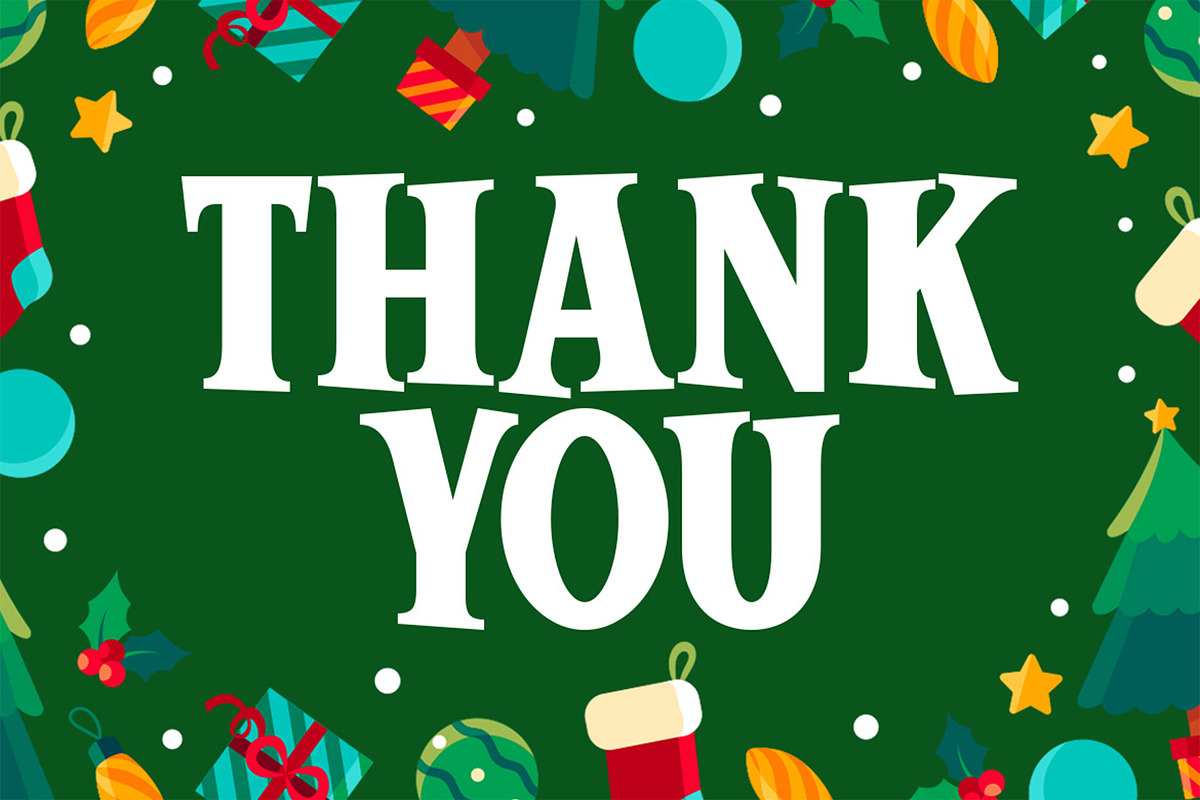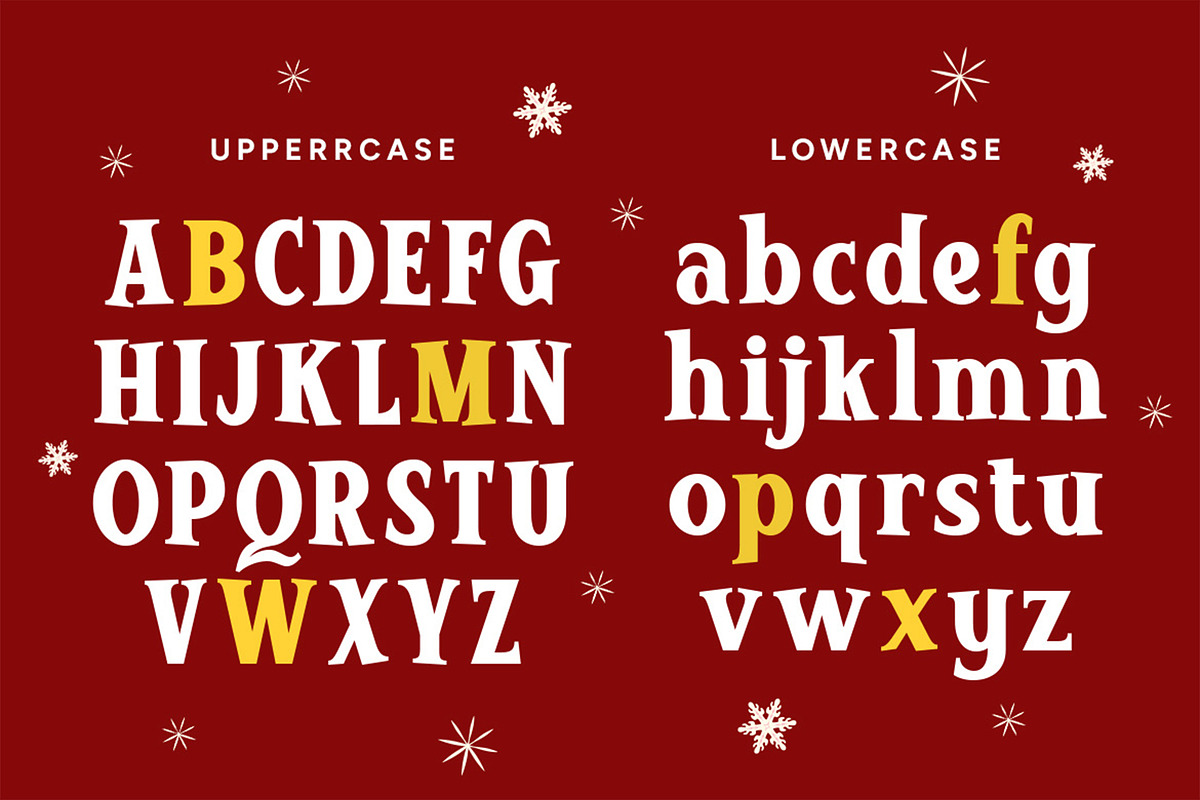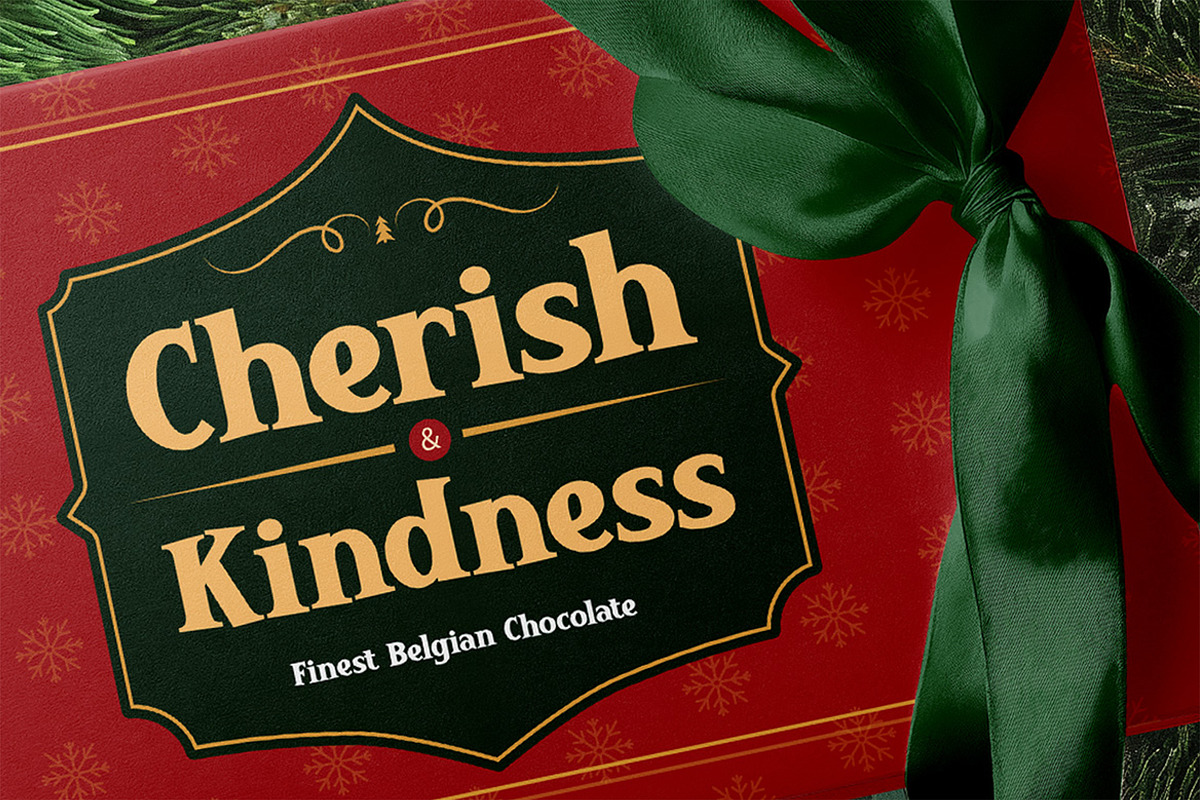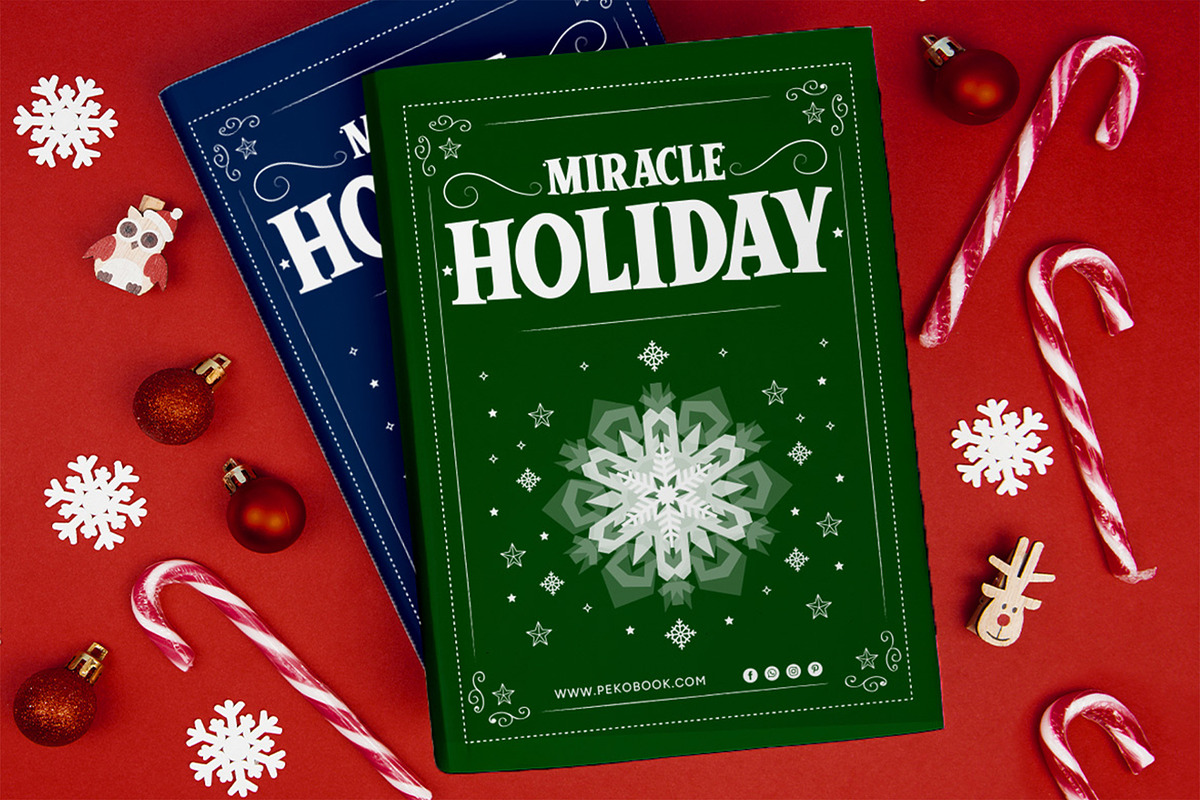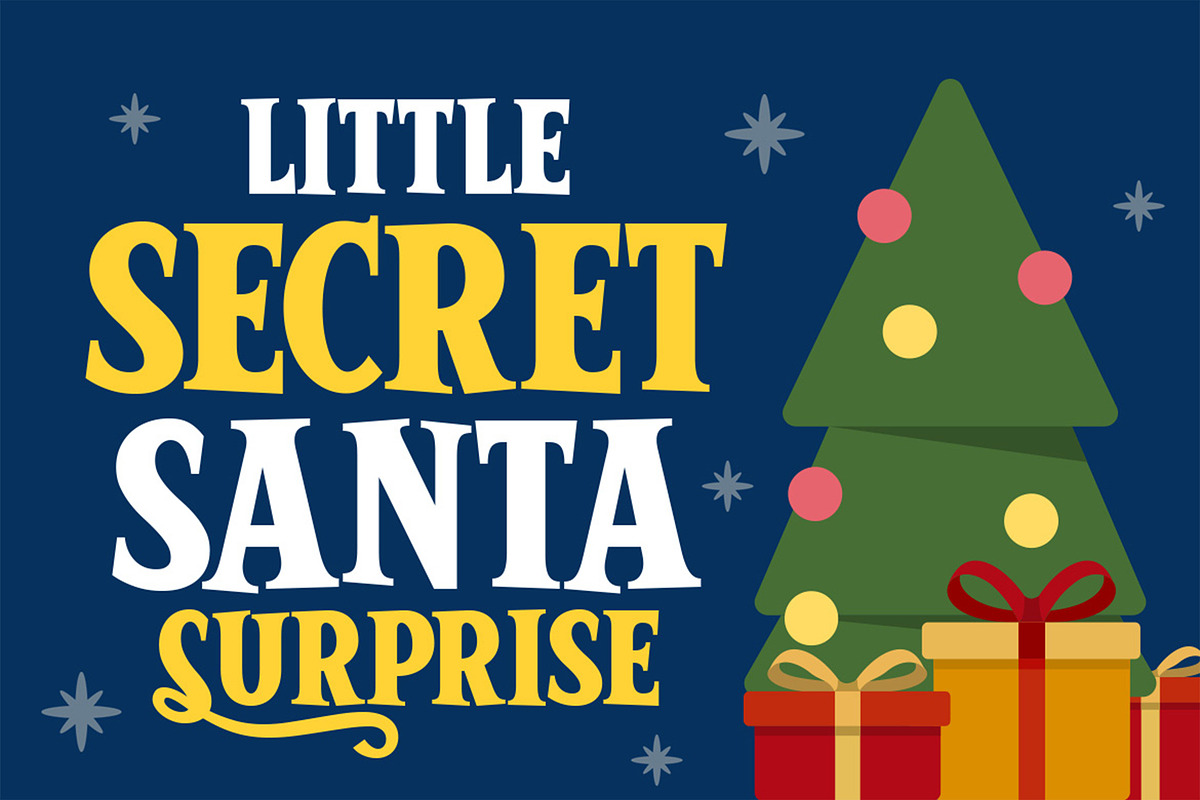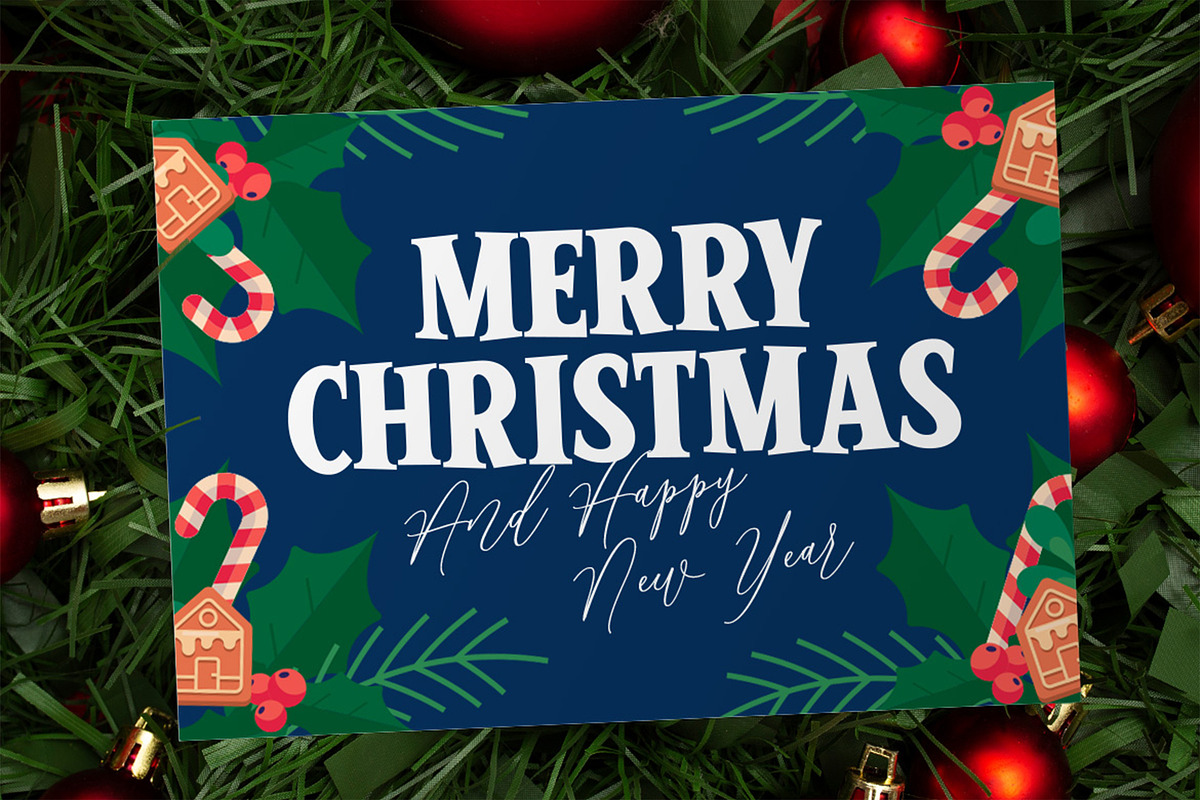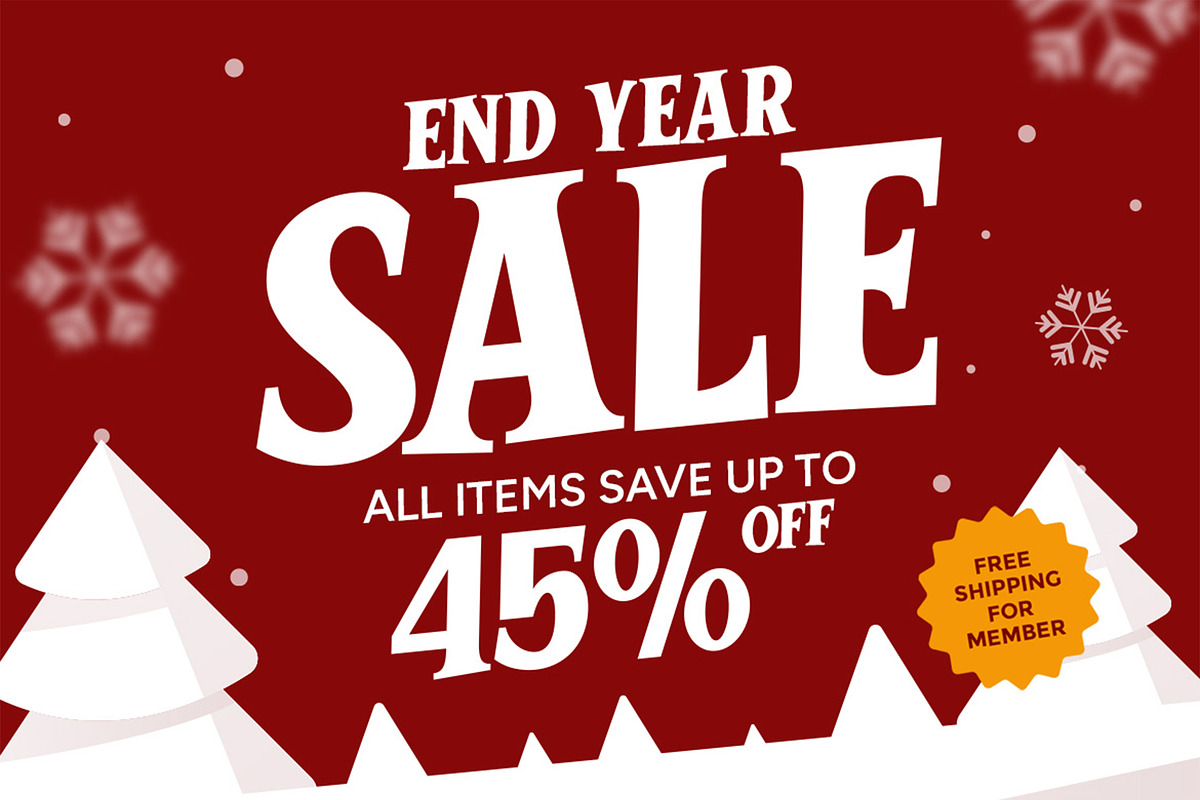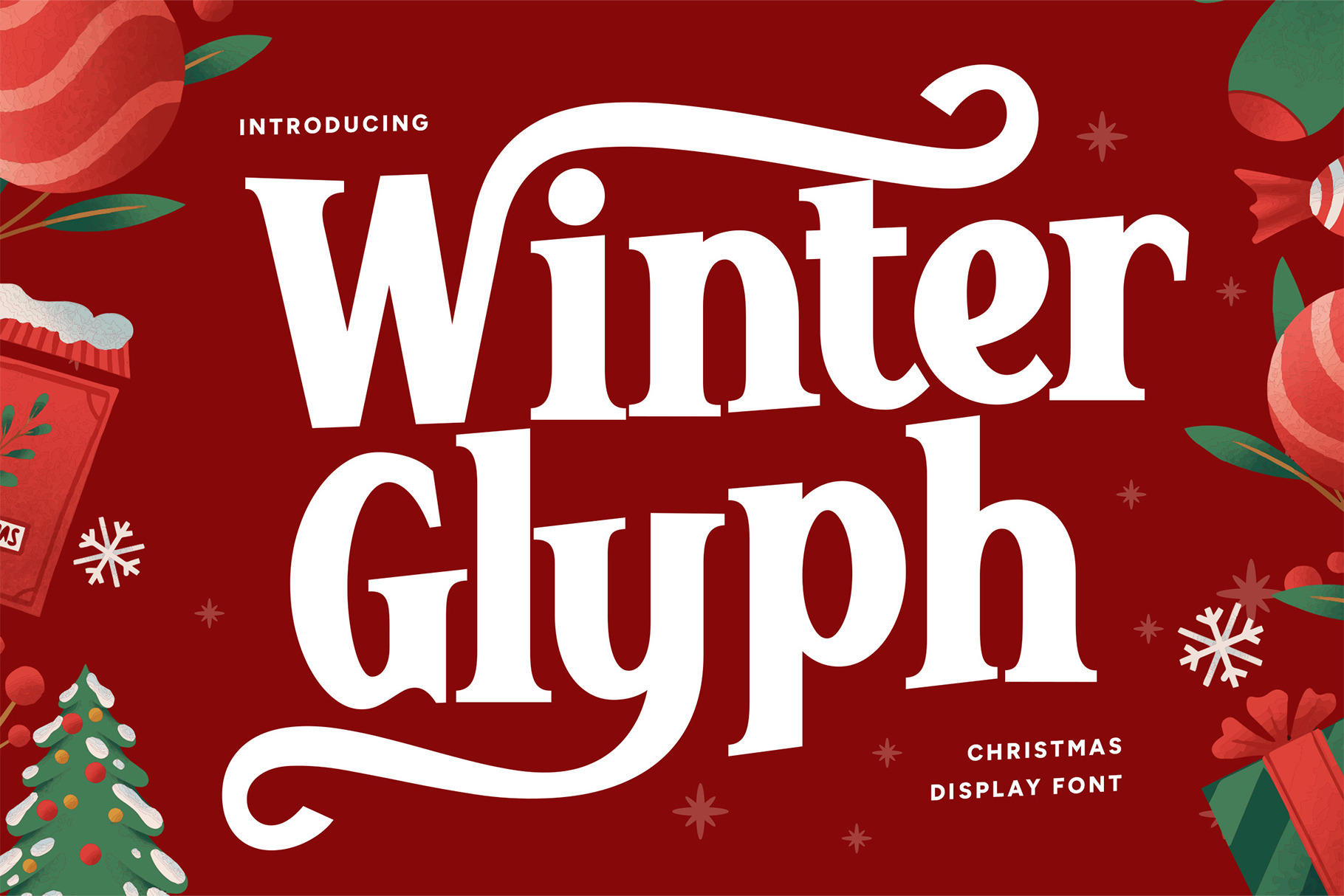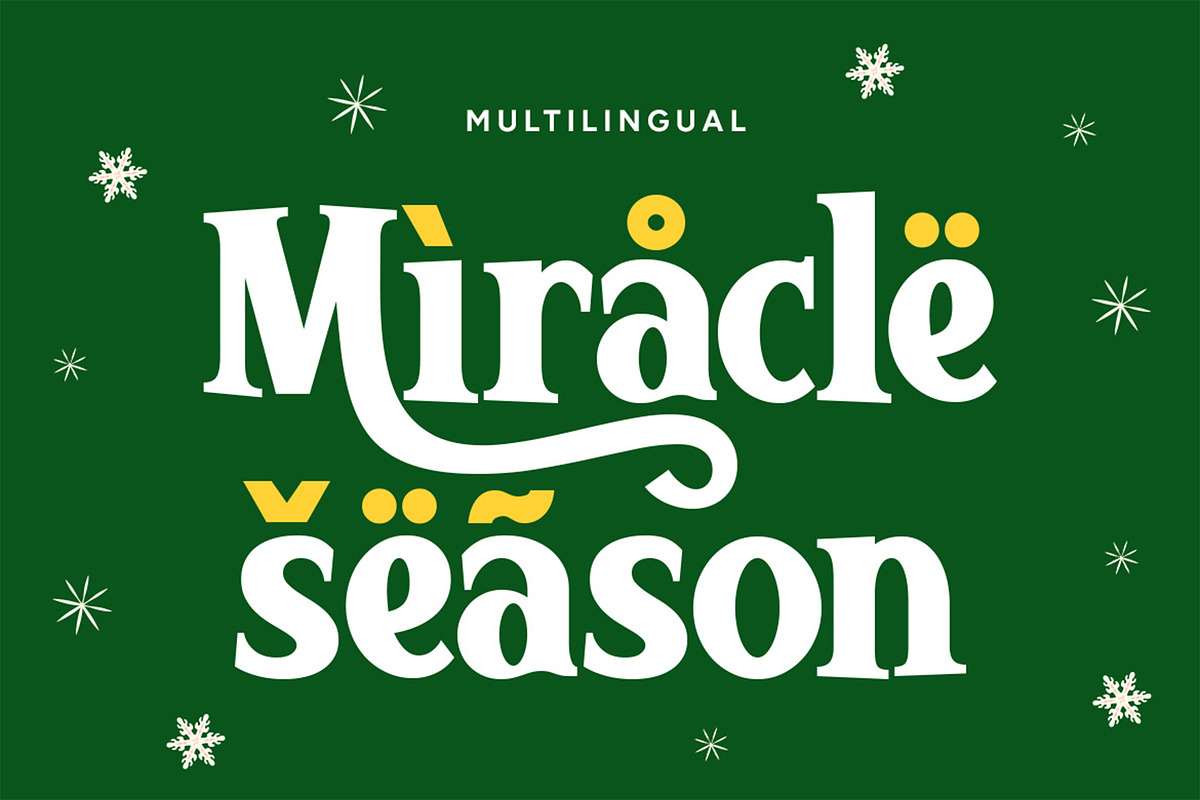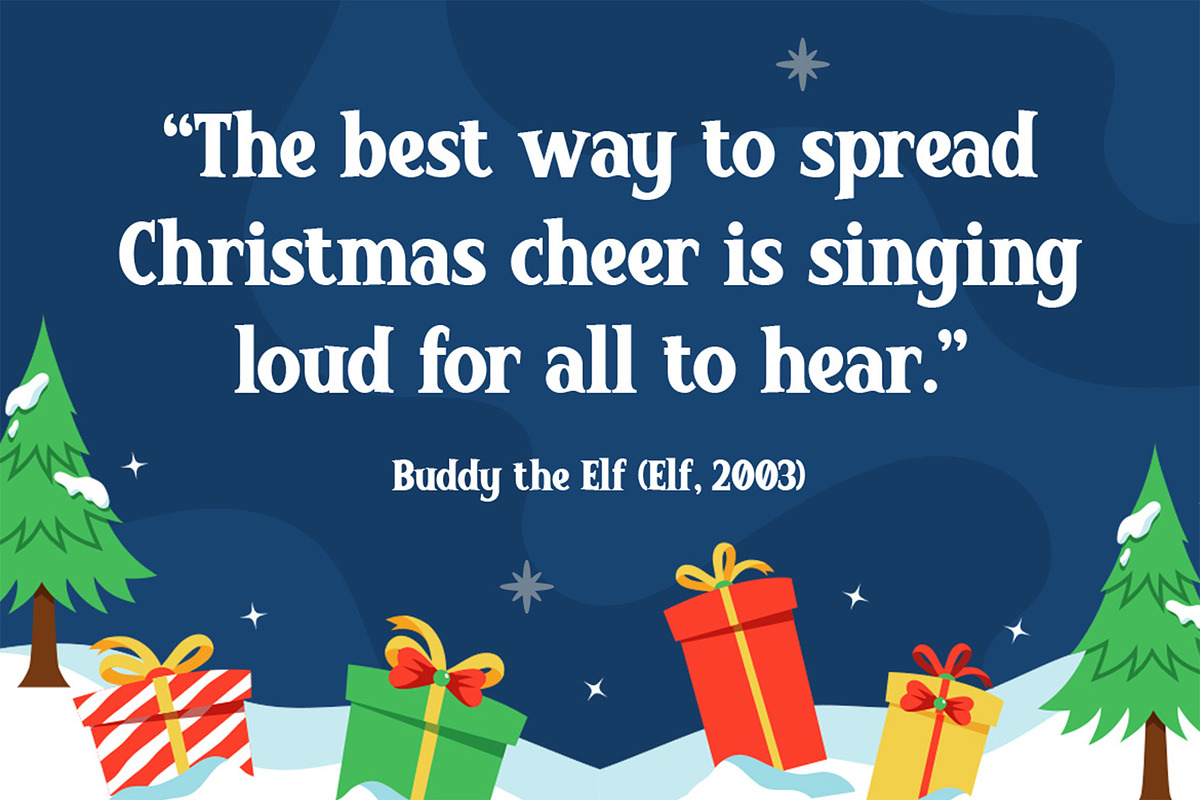
Winter Glyph - Christmas Font
Introducing Winter Glyph – Christmas Display Font Bring the magic of the holiday season into your designs with Winter Glyph, a bold and festive display font. With its uppercase and lowercase style, elegant curves, and joyful character, Winter Glyph is perfect for creating warm and cheerful Christmas-themed designs. This font is ideal for holiday branding, Christmas cards, festive posters, seasonal packaging, marketing campaigns, and social media content. Its bold yet playful design ensures your message stands out while capturing the cozy spirit of winter celebrations. Whether you’re designing for a Christmas sale, party invitation, gift packaging, or festive merchandise, Winter Glyph adds a timeless and charming holiday touch. If you’re looking for a Christmas display font that is versatile, eye-catching, and full of seasonal magic, Winter Glyph is the perfect choice. Features: - Uppercase & Lowercase - Number, Symbol, & Punctuation - Multilingual - OTF, TTF, WOFF, WOFF2